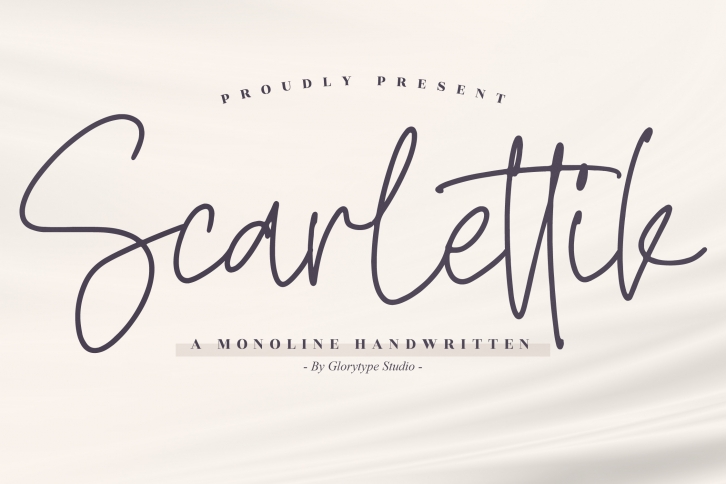
Scarlettik – Monoline Handwritten Font , from Glorytype Studio, suitable for any projects such as: logos, branding projects, homeware designs, product packaging, mugs, quotes, posters, shopping bags, t-shirts, book covers, name card, invitation cards, greeting cards, label, photography, watermark, special events, and all your other lovely projects that need a beautiful script taste.